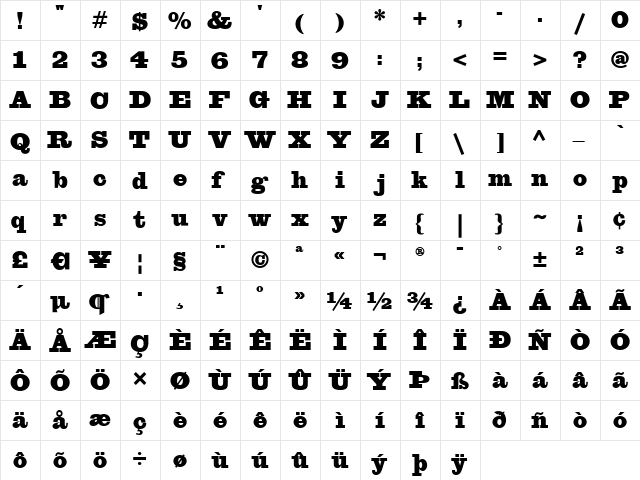
SpaghettiWesternWBW Medium
Design Context for SpaghettiWesternWBW Typeface
SpaghettiWesternWBW taps into classic Western woodtype traditions — bold, characterful, and impossible to ignore.
A natural fit for craft spirits, ranch branding, rodeo events, and Americana-inspired design work.
Font Pairing: Combine SpaghettiWesternWBW with a simple slab or neutral sans — period-accurate companions reinforce the vintage feel without competing for attention.
Pro Tip: Use SpaghettiWesternWBW for short, impactful bursts of text — it shines in poster headlines and product names rather than extended copy.